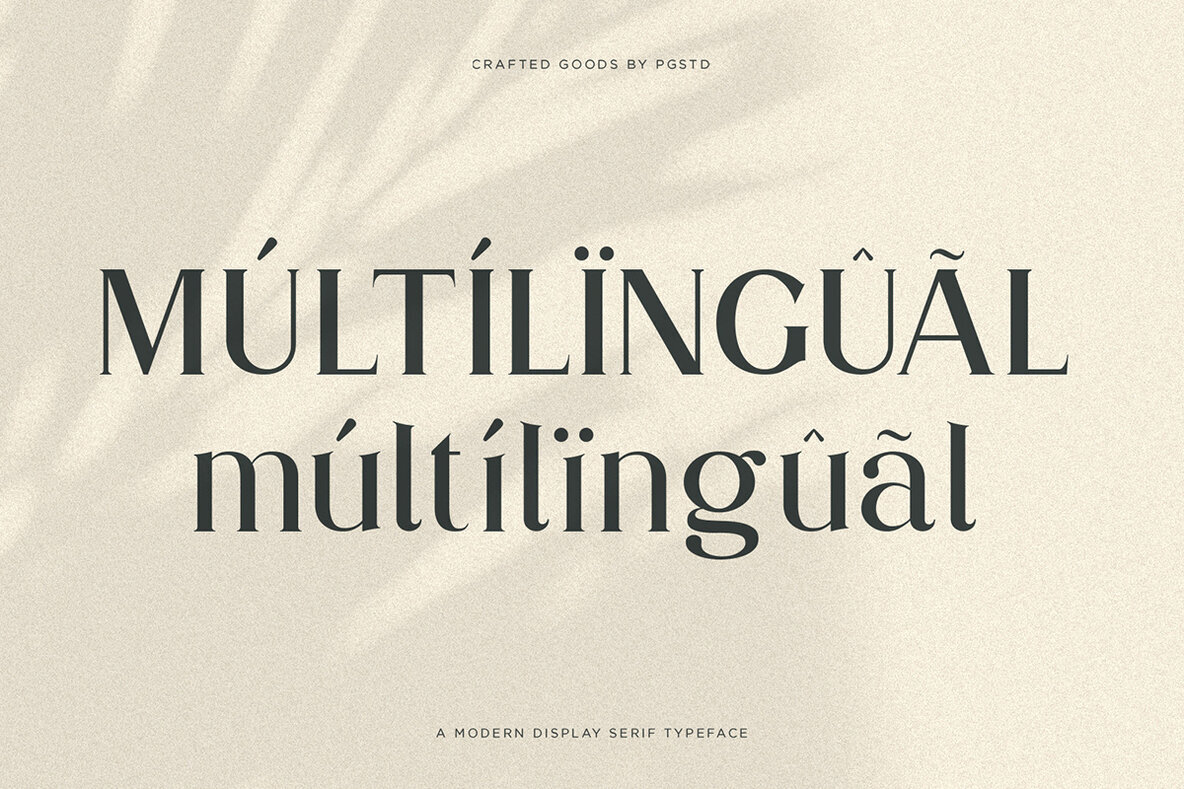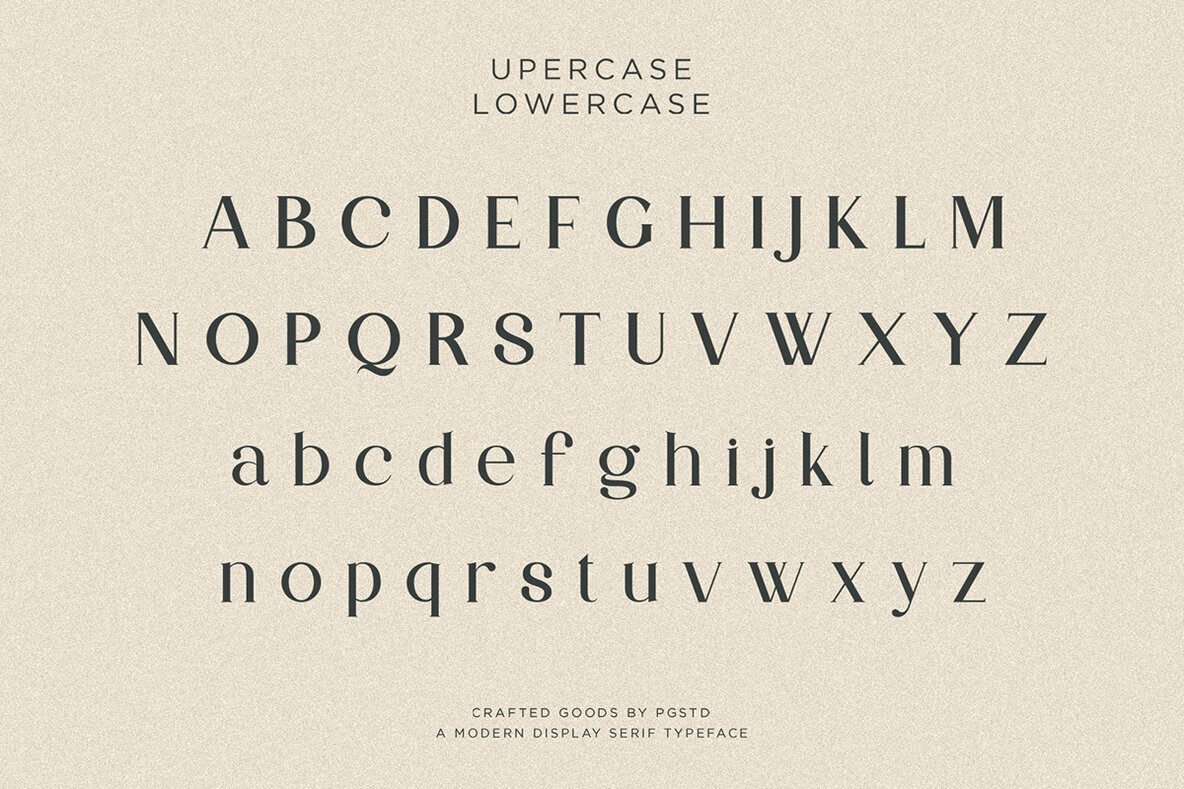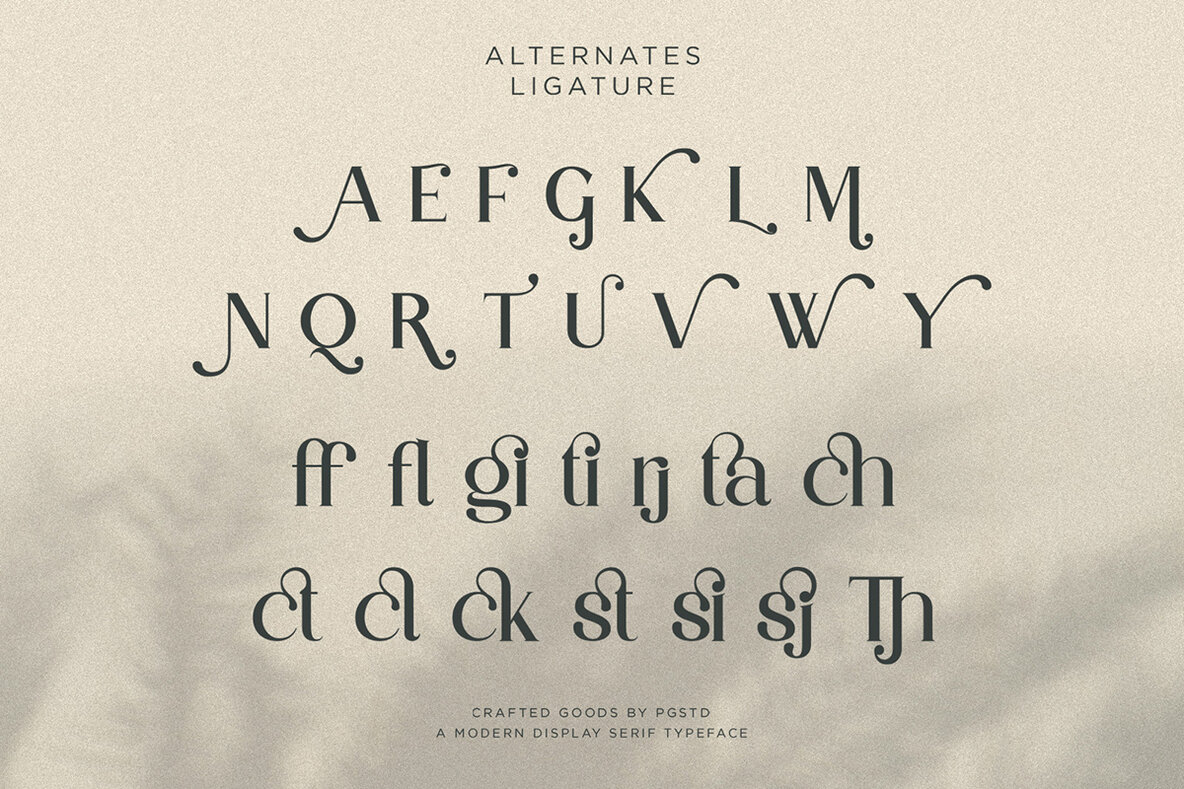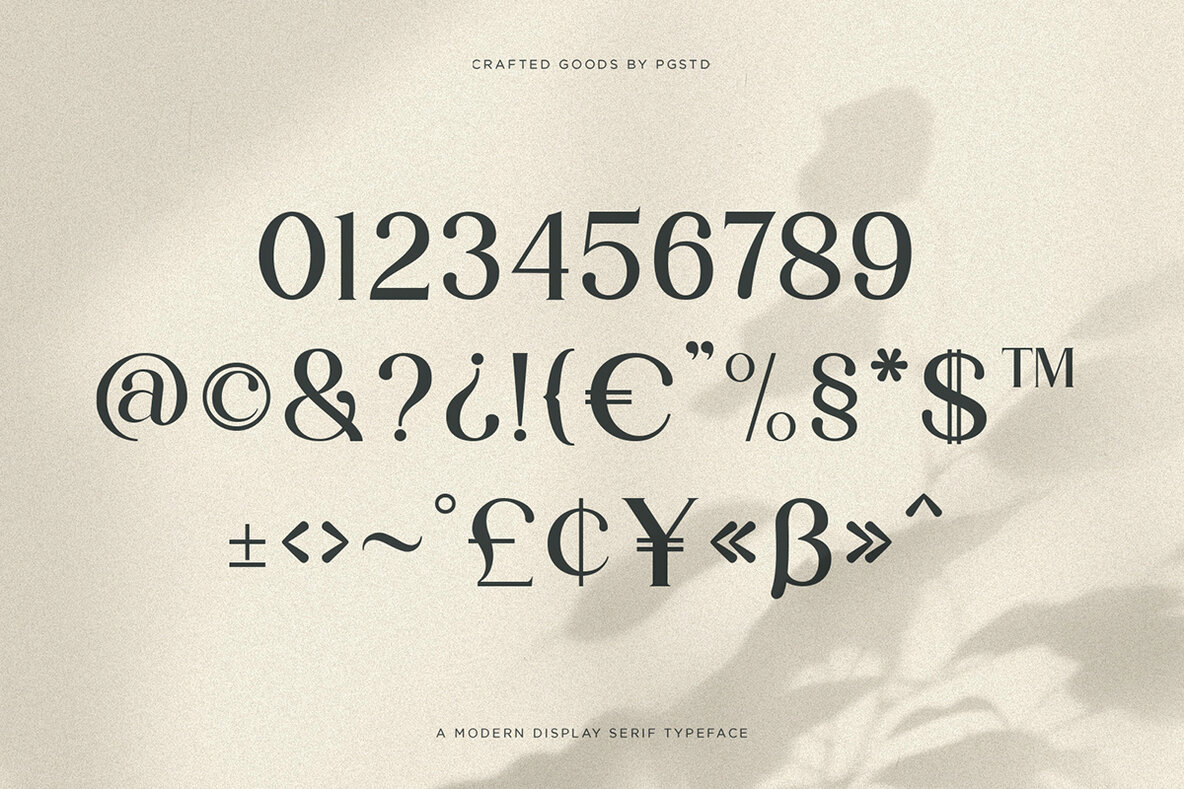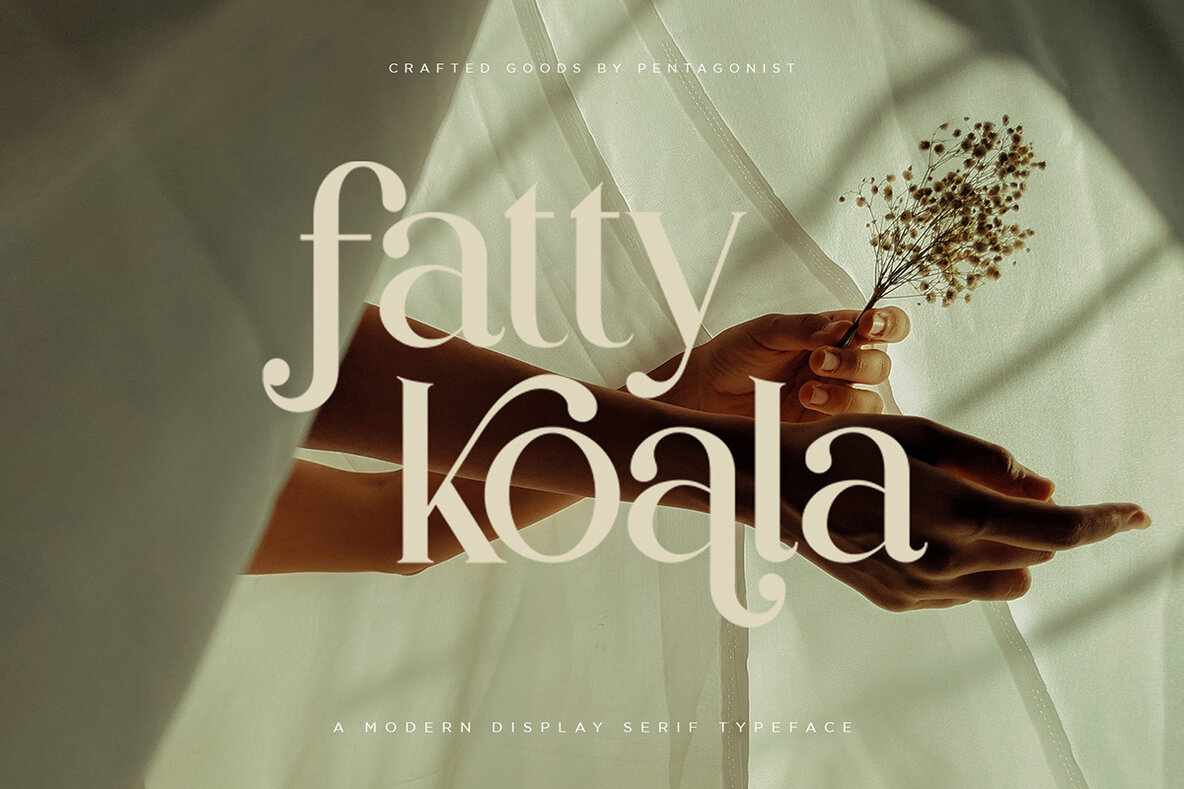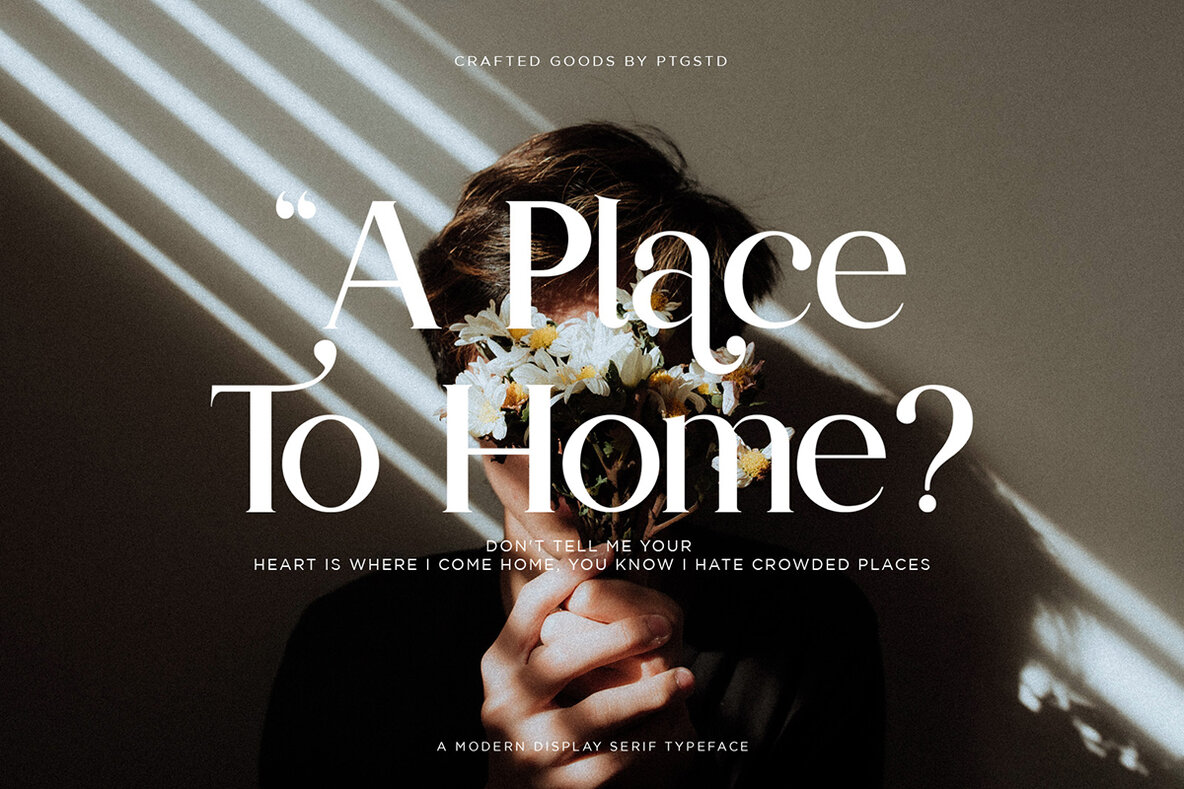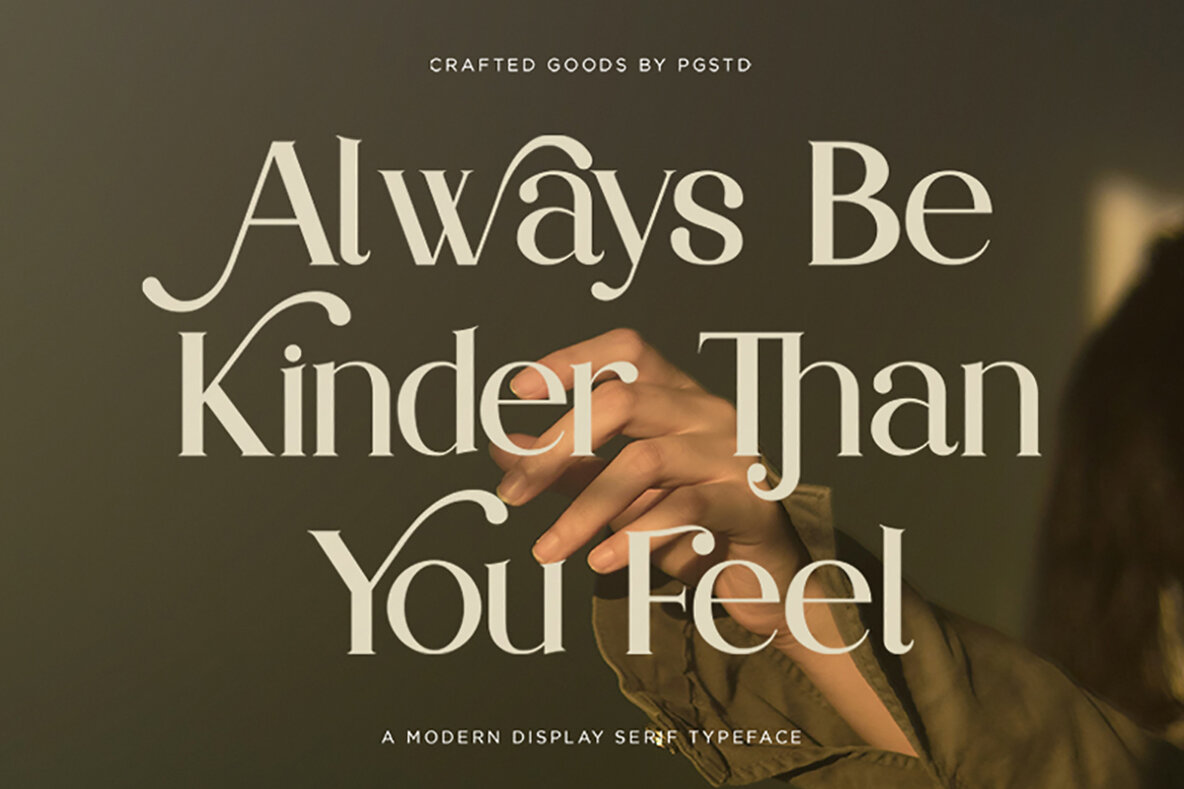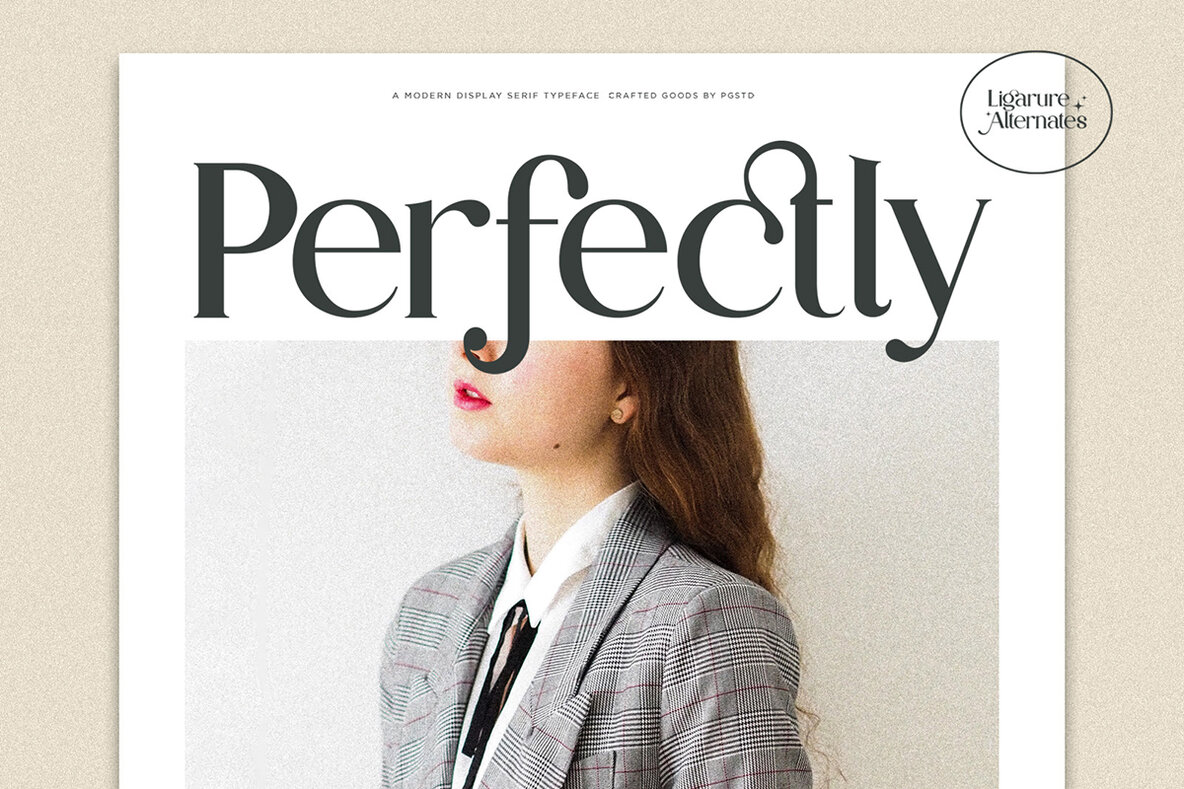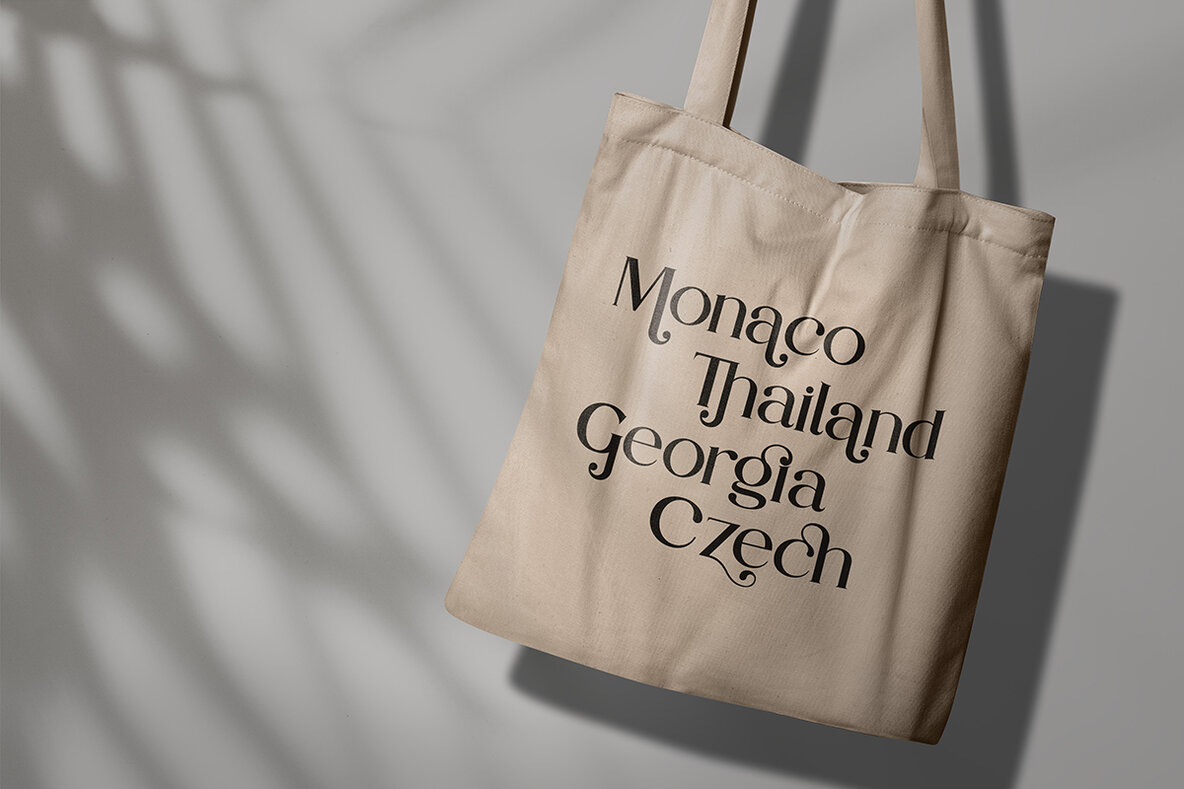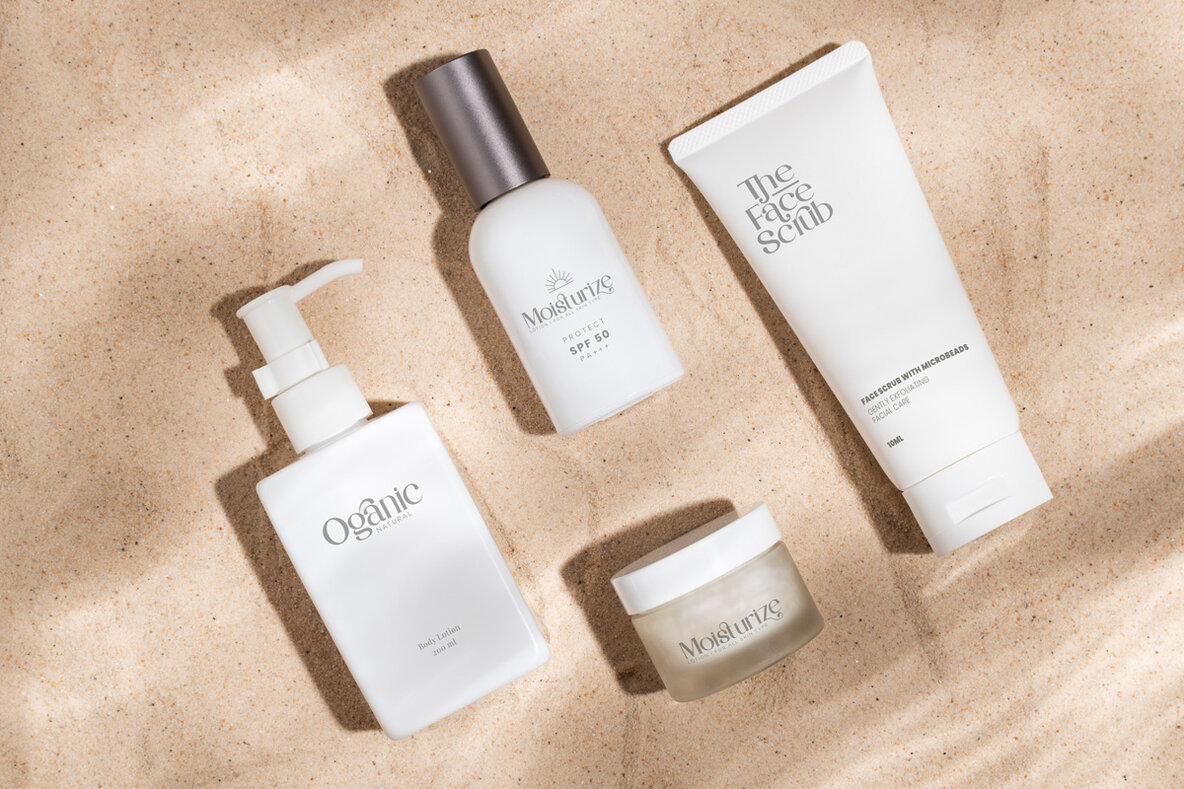
Partake by Pentagonistudio: A Classic Serif Reimagined
Partake is a timeless serif font, skillfully crafted to merge classic aesthetics with modern and ligature characters. Designed with precision by Pentagonistudio, it embodies both tradition and contemporary design. Perfect for graphic designers and creative directors, Partake effortlessly integrates into diverse projects, enhancing readability and aesthetic appeal.
• Versatile Style: Ideal for classic and modern projects.
• Ligature Characters: Enhanced readability and unique design.